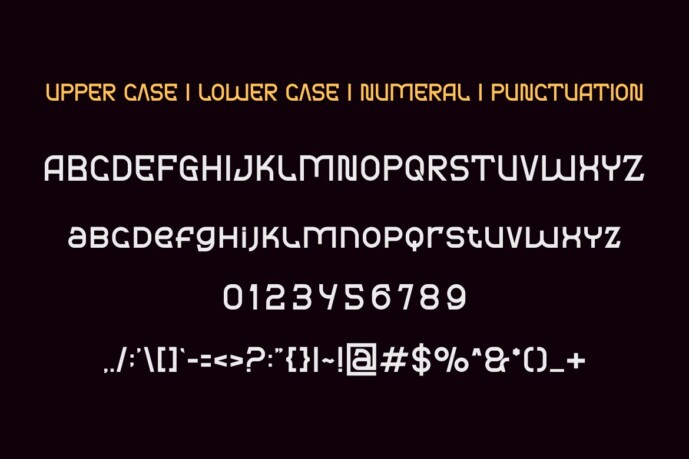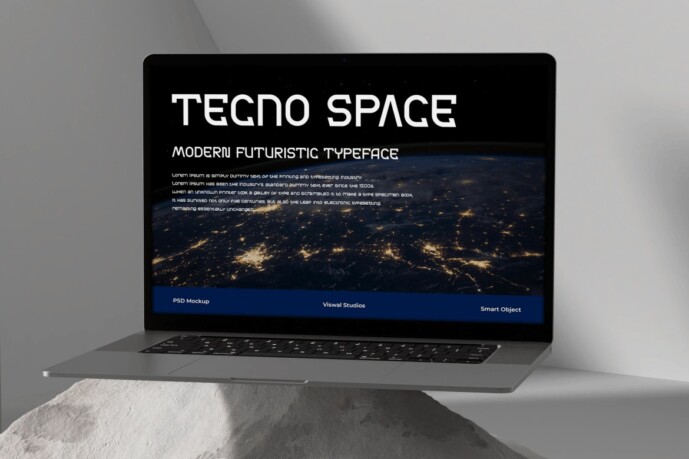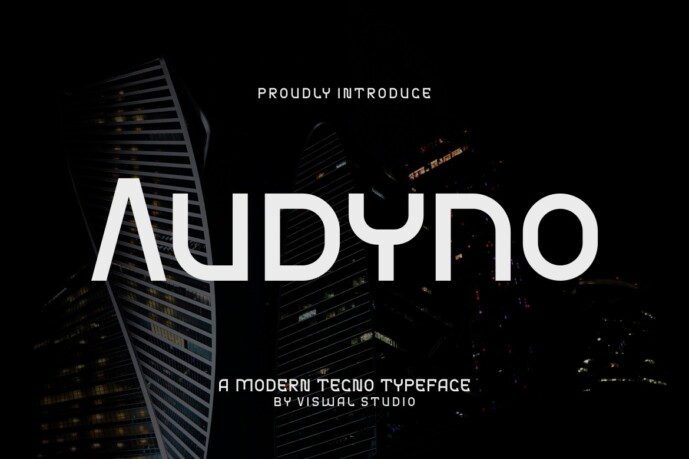
Audyno Font
Designer: Viswal
Audyno Font – The font is suitable for badges, labels, logos, brands, magazines, posters, etc. Our fonts feature upper and lower case, numbers and punctuation, multilingual support, and OpenType features. For amazing designs, you can mix them with other fonts as a complement.